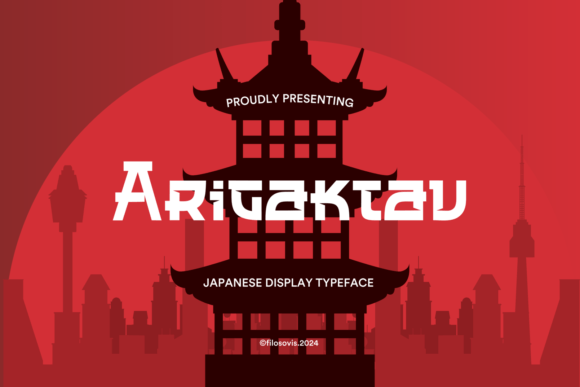
Introducing Arigaktau Font: The Cool, Asian-Inspired Display Font You Need
Are you looking for a font that can add a touch of uniqueness and cultural flair to your creative projects? Look no further than the Arigaktau font. This cool, Asian-inspired display font is designed to help you create stunning visual content that stands out from the crowd. In this article, we’ll explore the features and benefits of the Arigaktau font, and show you how to incorporate it into your designs.
What Makes Arigaktau Font So Special?
The Arigaktau font is a carefully crafted display font that draws inspiration from traditional Asian typography. Its unique design combines bold lines, intricate details, and a modern aesthetic to create a truly eye-catching effect. Here are some of the key features that make Arigaktau font stand out:
- Asian-Inspired Design: The Arigaktau font is deeply rooted in Asian typography, making it perfect for designers looking to add a touch of cultural authenticity to their work.
- Cool and Modern Aesthetic: The font’s bold lines and intricate details give it a modern, edgy feel that’s perfect for creative projects that require a bit of attitude.
- Highly Versatile: The Arigaktau font can be used for a wide range of design applications, from posters and flyers to digital graphics and branding materials.
- Easily Readable: Despite its bold design, the Arigaktau font is surprisingly easy to read, making it perfect for headlines, titles, and other display text.
How to Use Arigaktau Font in Your Creative Projects
Now that we’ve covered the features and benefits of the Arigaktau font, let’s talk about how to use it effectively in your designs. Here are some tips to get you started:
- Pair it with a Simple Font: To create visual balance, pair the Arigaktau font with a simple, sans-serif font for body text.
- Experiment with Colors: The Arigaktau font looks great in bold, bright colors. Experiment with different hues to find the perfect match for your design.
- Use it for Headlines and Titles: The Arigaktau font is perfect for headlines and titles. Use it to add a touch of drama and flair to your design.
- Don’t Overuse it: While the Arigaktau font is stunning, it’s best used in moderation. Limit its use to headlines and titles to avoid overwhelming your design.
The Benefits of Using Arigaktau Font in Your Designs
The Arigaktau font offers a range of benefits for designers, including:
- Unique Visual Identity: The Arigaktau font can help you create a unique visual identity for your brand or design project.
- Cultural Authenticity: For designers looking to create work that resonates with Asian audiences, the Arigaktau font offers a level of cultural authenticity that’s hard to match.
- Flexibility: The Arigaktau font can be used for a wide range of design applications, making it a versatile addition to your font library.
- Easy to Read: Despite its bold design, the Arigaktau font is surprisingly easy to read, making it perfect for display text.